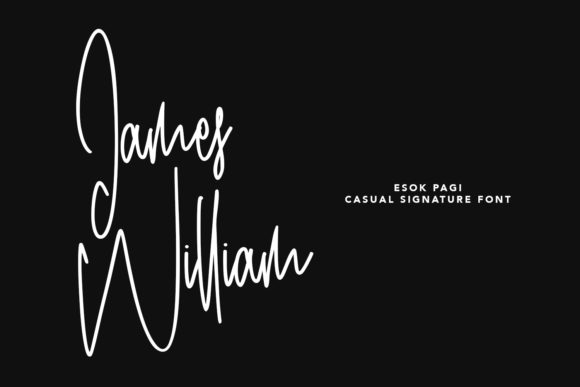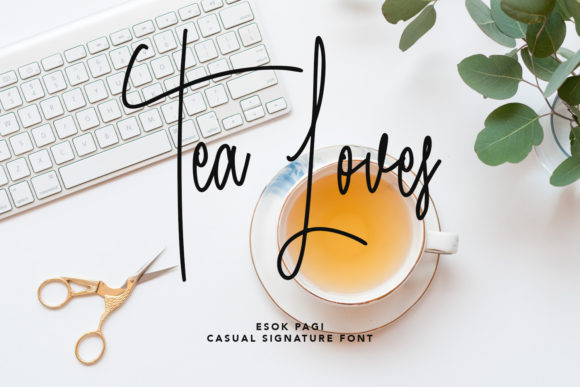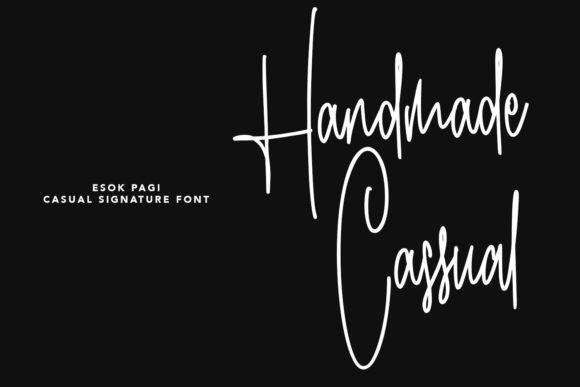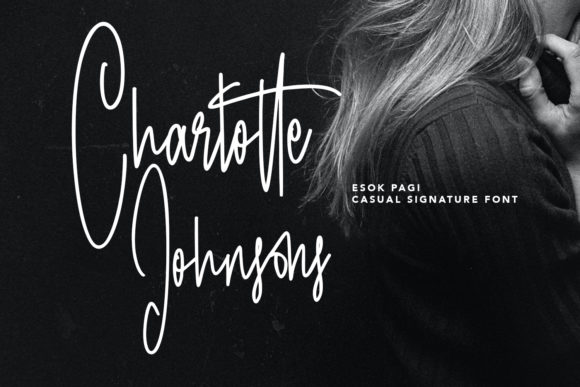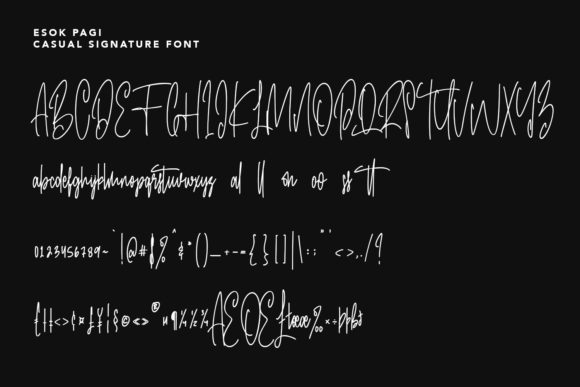
Discover the Charm of Esok Pagi Font: Elevate Your Designs with a Lovely Handwritten Style
Are you on the hunt for a font that adds a touch of elegance and whimsy to your designs? Look no further than Esok Pagi Font, a stunning handwritten typeface that is sure to capture the hearts of designers and crafters alike. In this article, we’ll dive into the world of Esok Pagi, exploring its unique characteristics, and how it can elevate your branding, logos, and quotes to new heights.
What is Esok Pagi Font?
Esok Pagi Font is a beautiful, timeless handwritten font that exudes warmth and sophistication. Its lovely and delicate strokes make it an ideal choice for creating eye-catching logos, branding materials, and inspirational quotes. What sets Esok Pagi apart is its unique and beautiful touch, where every letter is carefully crafted to bring a sense of personality and charm to your designs.
Key Features of Esok Pagi Font
• Handwritten with love: Esok Pagi Font is a genuine handwritten typeface, giving it a personal and human touch that digital fonts often lack.
• Unique letterforms: Each letter in Esok Pagi has its own distinct character, ensuring that your designs stand out from the crowd.
• Timeless elegance: The font’s classic and sophisticated style ensures that it will remain relevant for years to come, making it a valuable addition to your design library.
• Versatile: Esok Pagi Font is perfect for a wide range of design applications, from logos and branding to quotes and social media graphics.
Why Choose Esok Pagi Font?
With so many fonts available, why should you choose Esok Pagi for your next design project? Here are just a few compelling reasons:
• Add a personal touch: Esok Pagi Font brings a sense of warmth and personality to your designs, helping you connect with your audience on a more personal level.
• Stand out from the crowd: The font’s unique letterforms and handwritten style ensure that your designs will stand out in a sea of more generic, digital fonts.
• Easy to read: Despite its elegant and cursive nature, Esok Pagi Font remains highly legible, making it perfect for use in quotes, headings, and titles.
How to Use Esok Pagi Font in Your Designs
Ready to bring the charm of Esok Pagi Font into your designs? Here are a few ideas to get you started:
• Logo design: Use Esok Pagi Font to create a custom logo that reflects your brand’s personality and values.
• Branding materials: Add a touch of elegance to your business cards, letterheads, and packaging with Esok Pagi Font.
• Inspirational quotes: Create stunning social media graphics and inspirational quotes that showcase the beauty of Esok Pagi Font.
In conclusion, Esok Pagi Font is a truly special typeface that can elevate your designs to new heights. Its unique and beautiful touch, combined with its timeless elegance and versatility, make it an excellent choice for designers and crafters looking to add a personal touch to their work. Whether you’re creating logos, branding materials, or inspirational quotes, Esok Pagi Font is sure to bring a sense of charm and whimsy to your designs.